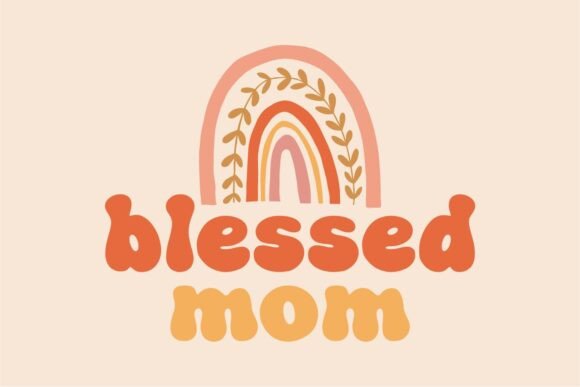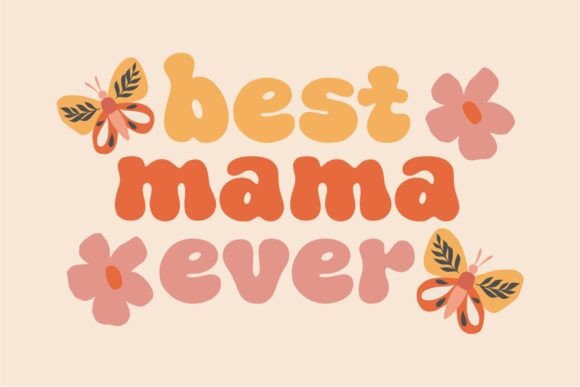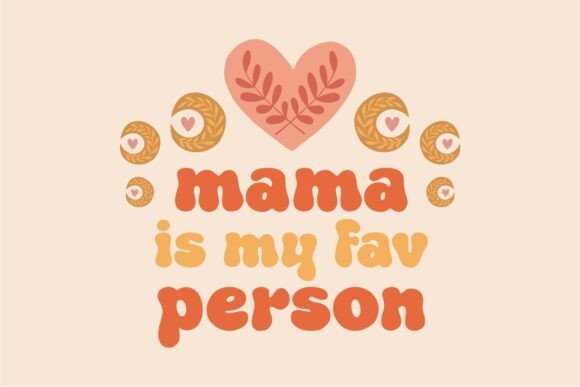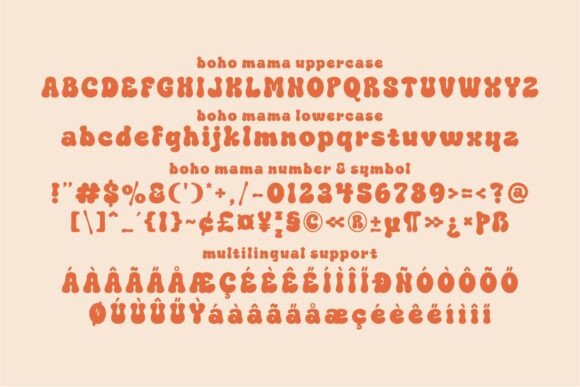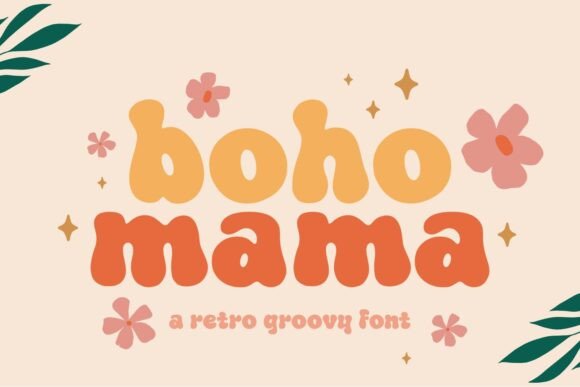
Unleash the Vintage Charm of Boho Mama Font: Elevate Your Designs with Retro Flair
Are you on the hunt for a font that embodies the essence of vintage charm and retro elegance? Look no further than Boho Mama, a standout display font that is sure to add a touch of nostalgia to your designs. With its distinct character and authentic form, Boho Mama is the perfect choice for designers and crafters looking to create unique and eye-catching projects.
The Distinct Character of Boho Mama
Boho Mama is more than just a font – it’s an experience. Its unmistakable letter designs are uniquely poised to turn invitations, logos, and branding elements into a creative feast. The font’s retro charm is reminiscent of a bygone era, evoking feelings of warmth and nostalgia. Whether you’re looking to create a bold statement or add a touch of elegance to your designs, Boho Mama has got you covered.
Perfect for a Plethora of Creative Purposes
Boho Mama is a versatile font that can be used for a wide range of creative purposes. From logo designs and branding elements to banners, headlines, and craft projects, this font is sure to elevate your work into the realm of the extraordinary. Its unique elegance and retro charm make it perfect for:
- Logo designs: Create a lasting impression with Boho Mama’s distinctive lettering.
- Branding elements: Add a touch of nostalgia to your brand’s identity.
- Banners and headlines: Make a bold statement with Boho Mama’s eye-catching font.
- Craft projects: Add a touch of vintage charm to your handmade crafts.
- Invitations: Turn your invitations into a creative feast with Boho Mama’s unique letter designs.
Why Choose Boho Mama?
So, why choose Boho Mama over other fonts? Here are just a few reasons why this font stands out:
- Unique character: Boho Mama has a distinct character that sets it apart from other fonts.
- Retro charm: The font’s vintage charm is sure to evoke feelings of nostalgia and warmth.
- Versatility: Boho Mama can be used for a wide range of creative purposes.
- Elegance: The font’s unique elegance is sure to elevate your designs into the realm of the extraordinary.
Tips for Using Boho Mama
Here are a few tips for getting the most out of Boho Mama:
- Experiment with different sizes: Boho Mama looks great in large and small sizes, so don’t be afraid to experiment.
- Pair with other fonts: Boho Mama pairs well with other fonts, so try combining it with a sans-serif font for added contrast.
- Use it sparingly: Boho Mama is a bold font, so use it sparingly to add emphasis to your designs.
In conclusion, Boho Mama is a standout retro display font that is sure to add a touch of vintage charm to your designs. With its distinct character and authentic form, this font is perfect for designers and crafters looking to create unique and eye-catching projects. Whether you’re looking to create a bold statement or add a touch of elegance to your designs, Boho Mama has got you covered. So why wait? Indulge in the vintage charm of Boho Mama today and elevate your designs into the realm of the extraordinary.